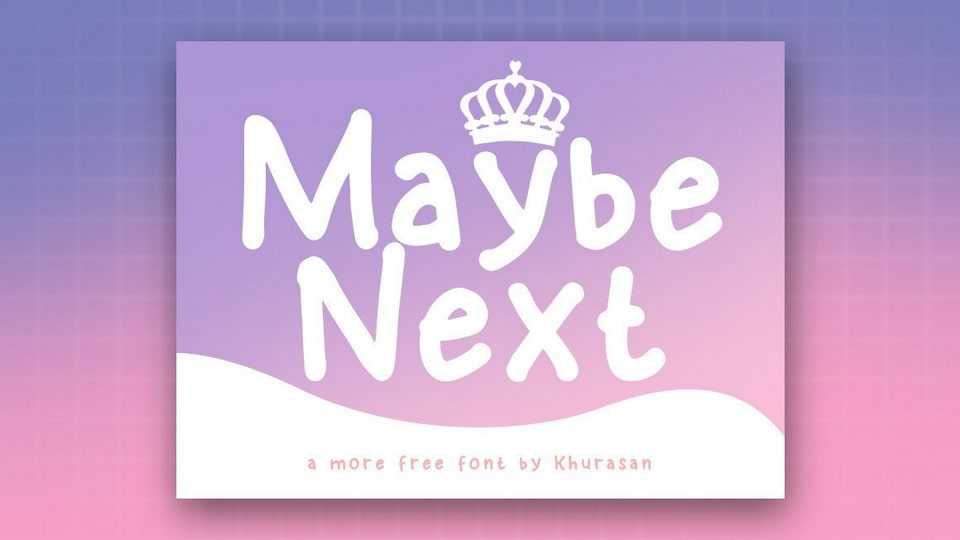
Download Maybe Next font, a simple and funny handwritten typeface. With its playful look Maybe Next font is perfect for posters, logos, magazines, book covers, banners, and many more.